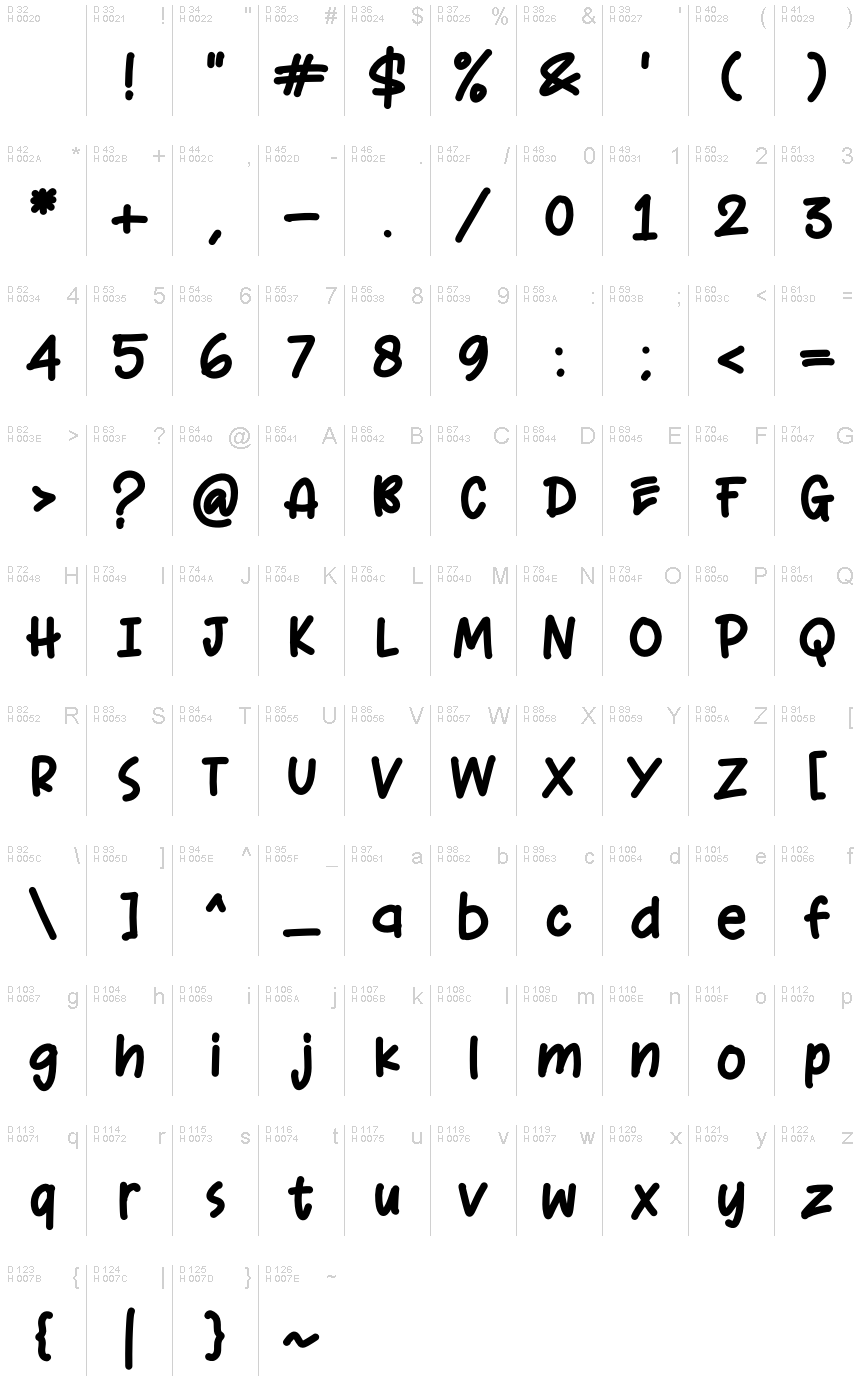
Urang Kaya Regular
Urang Kaya, a captivating handwritten font crafted by Selawetype, exudes a warm and authentic charm. The fluid strokes and natural variations lend an organic, artisanal feel, inviting the viewer to engage with the text on a deeper level. This font's distinctive character and expressive qualities make it an alluring choice for projects seeking to convey a sense of human touch and personal flair.
Urang Kaya's versatility shines through its ability to seamlessly adapt to diverse design contexts. From rustic-inspired branding to whimsical stationery, its playful yet refined aesthetic lends itself effortlessly to a wide range of applications. Whether crafting captivating product packaging, designing impactful editorial layouts, or elevating the visual identity of a boutique business, Urang Kaya's unique personality is sure to leave a lasting impression.